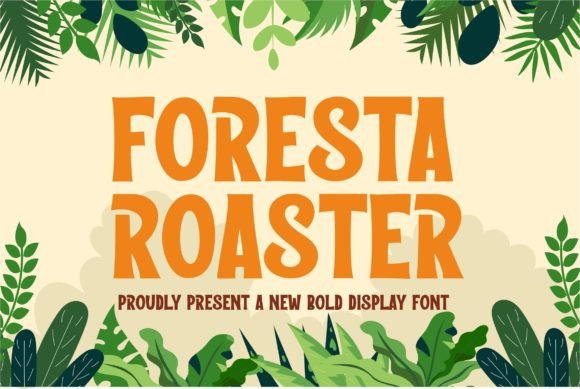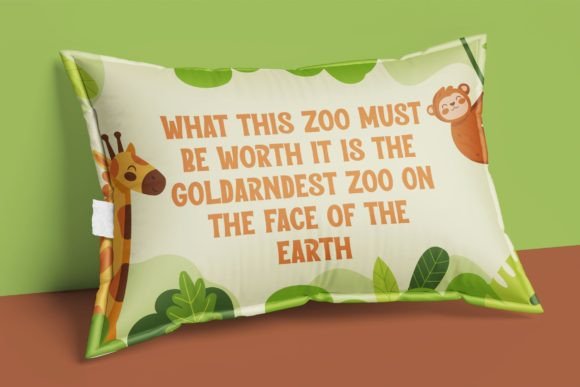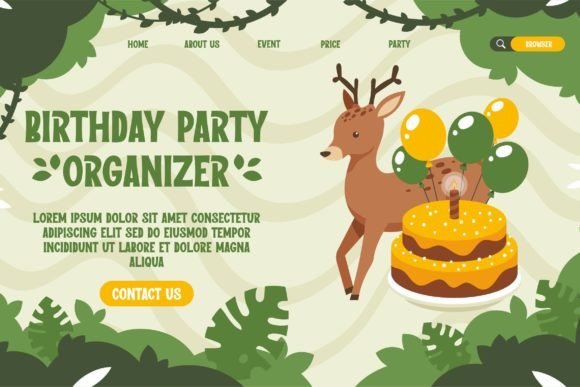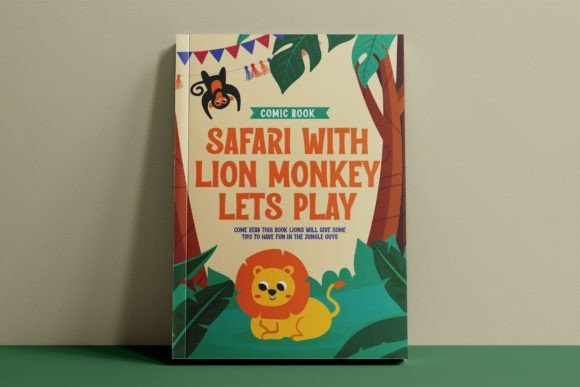
Foresta Roaster Font: Rustic Bold Display for Nature Branding & Logo Design
About the Foresta Roaster Font
Make a bold statement with Foresta Roaster Font, a powerful and memorable font. Foresta Roaster is a bold and eye-catching display font inspired by the rugged beauty of nature and the warmth of campfire nights. The font features strong, blocky letterforms with organic edges, evoking the texture of wood or stone. Its adventurous and rustic aesthetic makes it perfect for branding outdoor gear, coffee shops, eco-friendly products, or any project that seeks a natural, earthy feel.
Foresta Roaster combines strength with charm, adding character and personality to posters, packaging, logos, and signage, especially in contexts that aim to reflect the outdoors and sustainability.
Foresta Roaster Font Usage Examples
Foresta Roaster Font Example